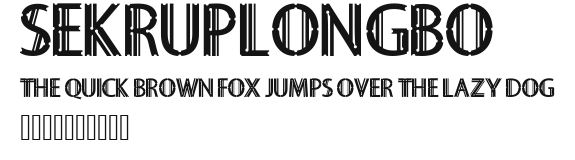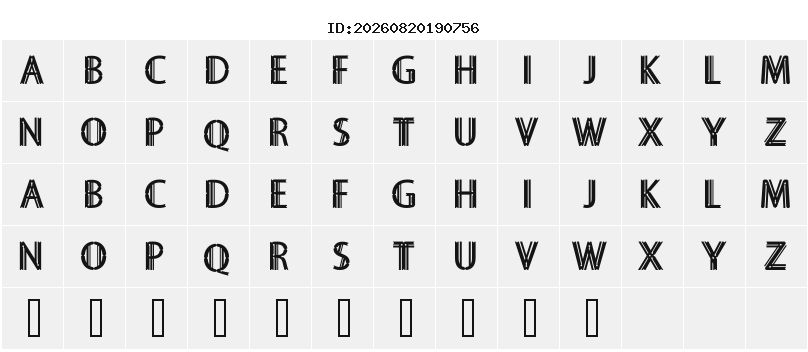
Sekruplongbo Preview
About Sekruplongbo.ttf
Sekruplongbo.ttf is a modern, elegant sans-serif font designed for ultimate readability and visual harmony. Perfect for branding, headlines, web design, and print materials.